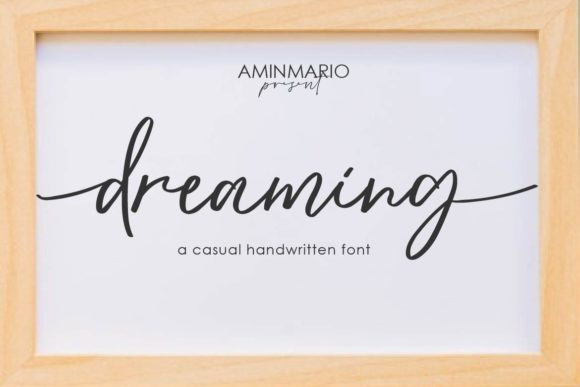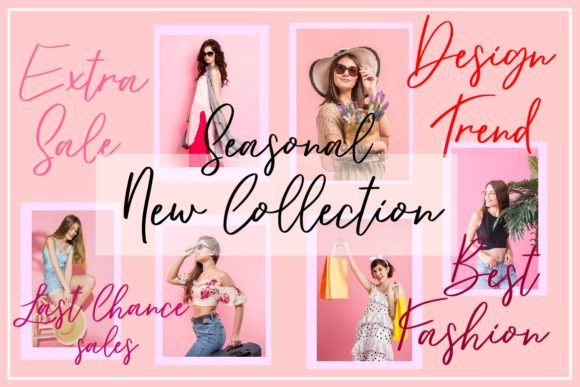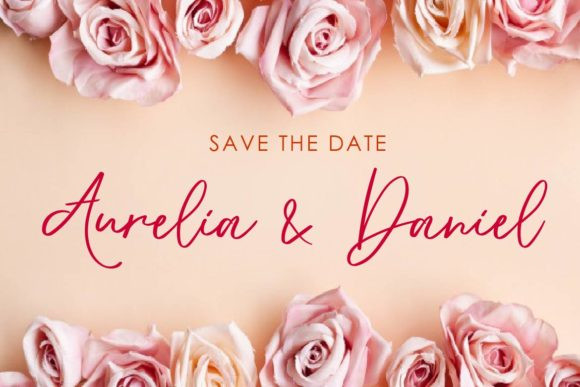
Dreaming Font
Dreaming is a casual handwritten script, full of personality and curves. This font was designed using quick strokes to create a natural handwritten style.
This font is suitable for logos, watermarks on photography, signatures, quotes, wedding designs, album covers, business cards, clothing, magazines, posters, and more!